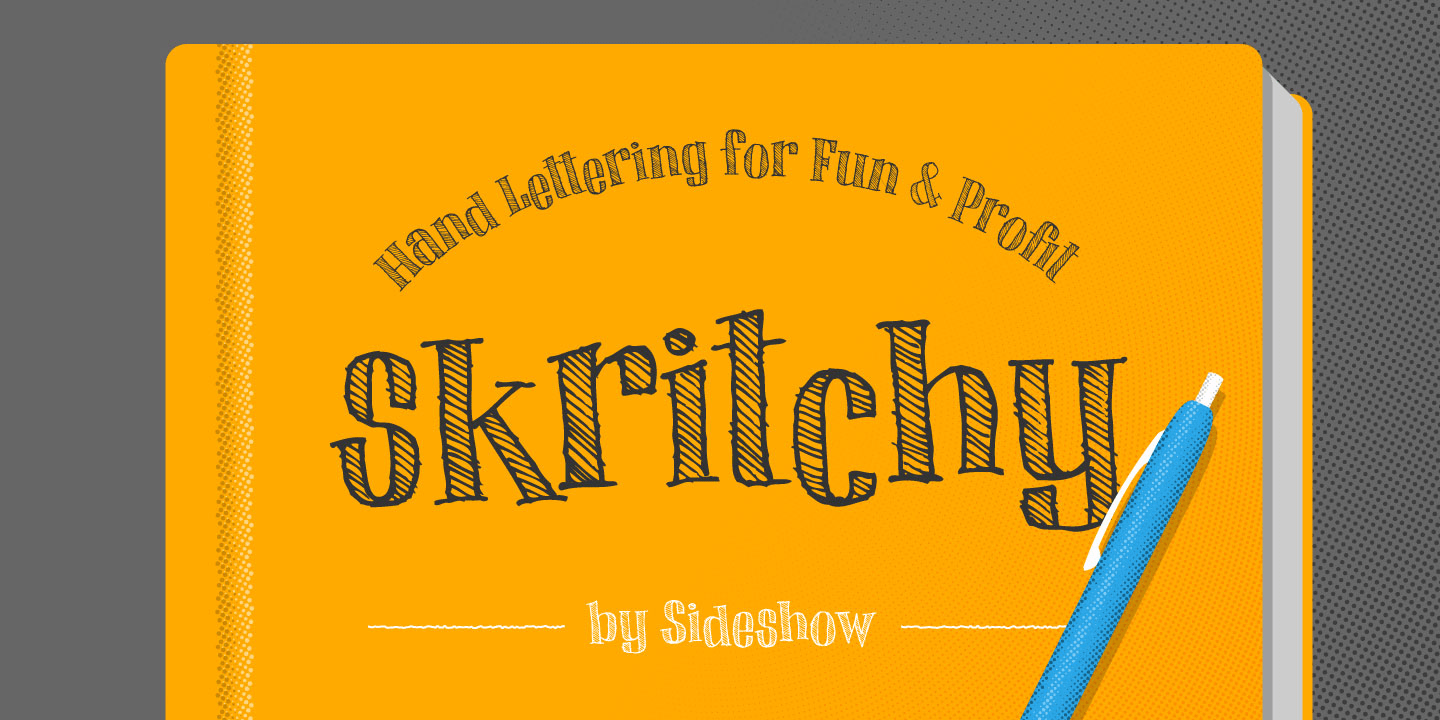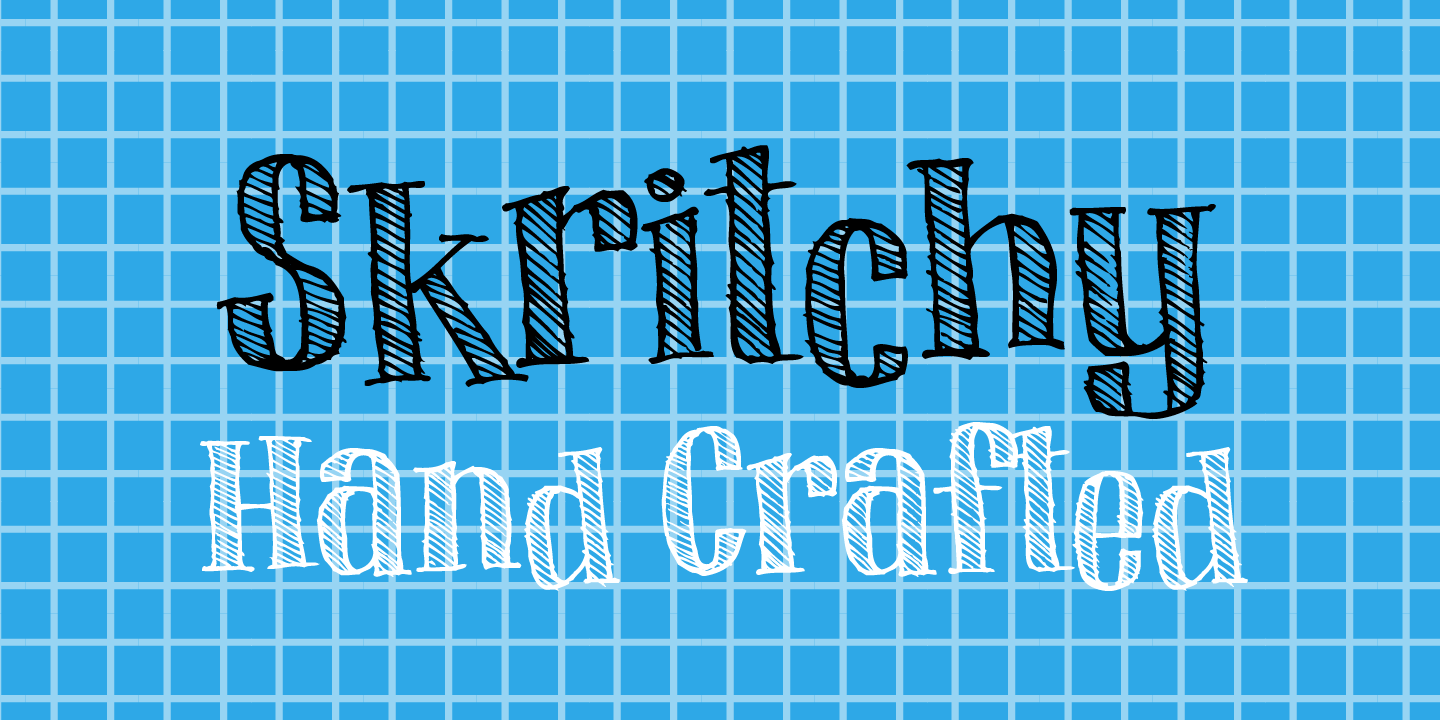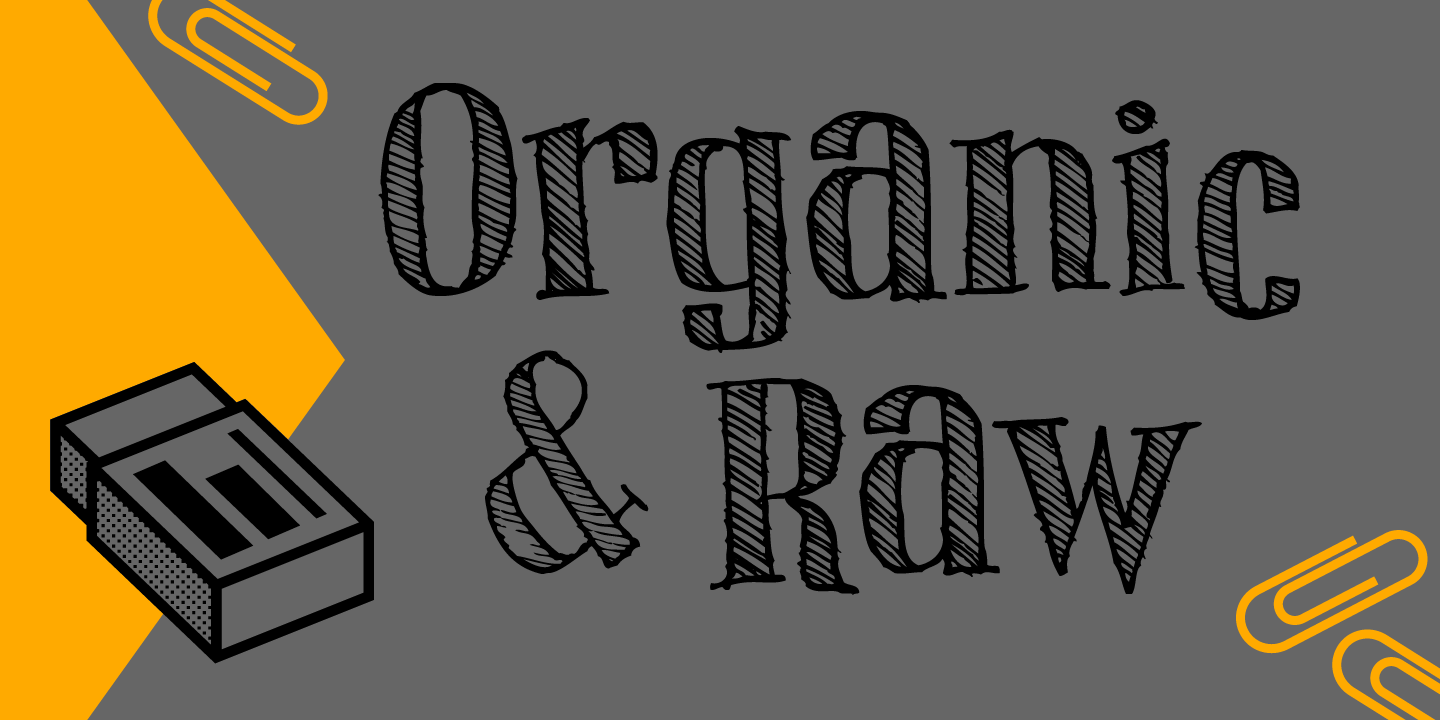
Skritchy
Font Family by Sideshow
You don't need to be on the front of a dollar bill to appreciate fine hand-etched serif lettering. All you need is Skritchy! This finely made ball-point pen drawn typeface is the perfect compliment for any design project or ACME inspired blueprint drawing when you really want to show them who the real genius is!